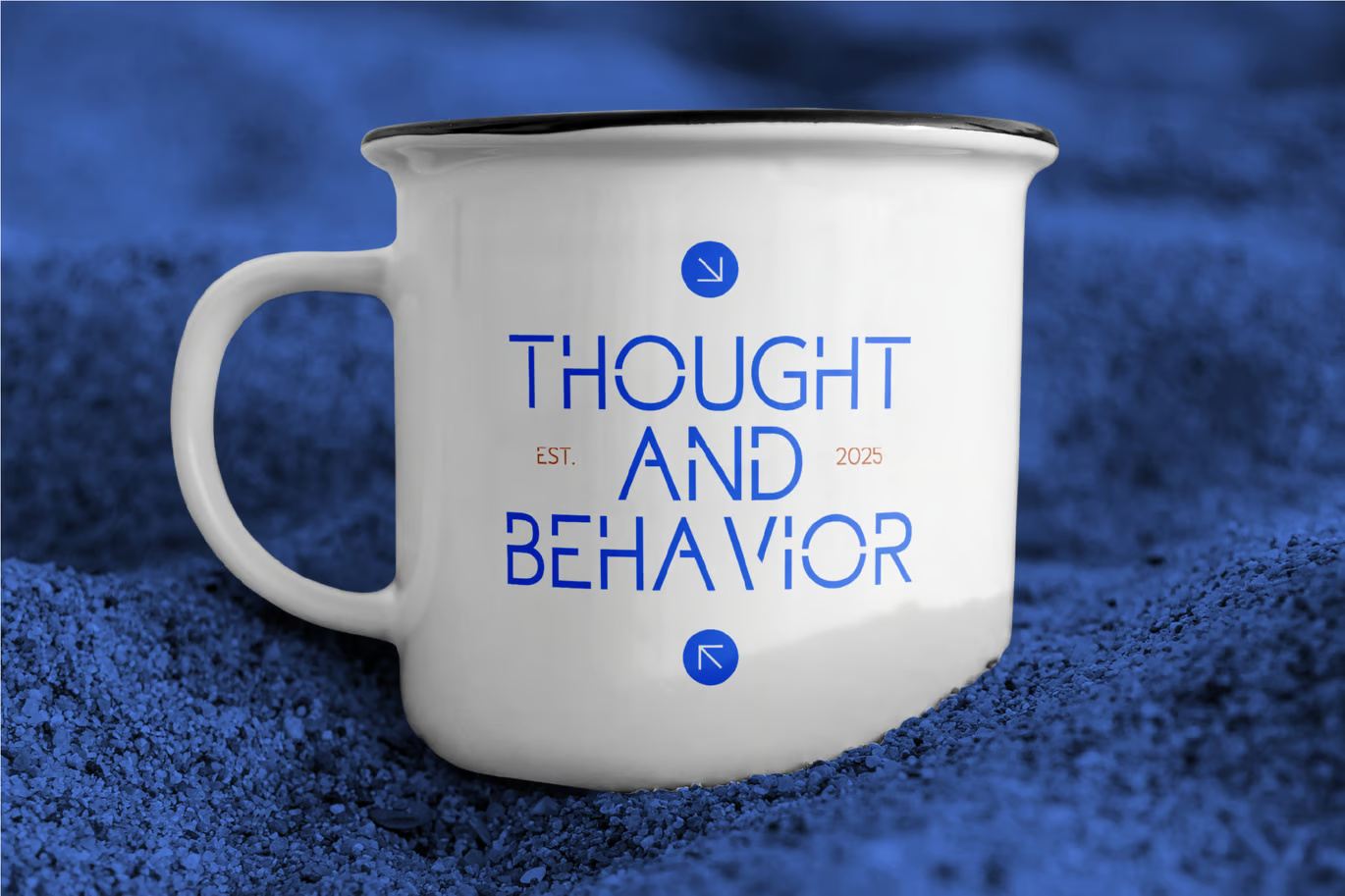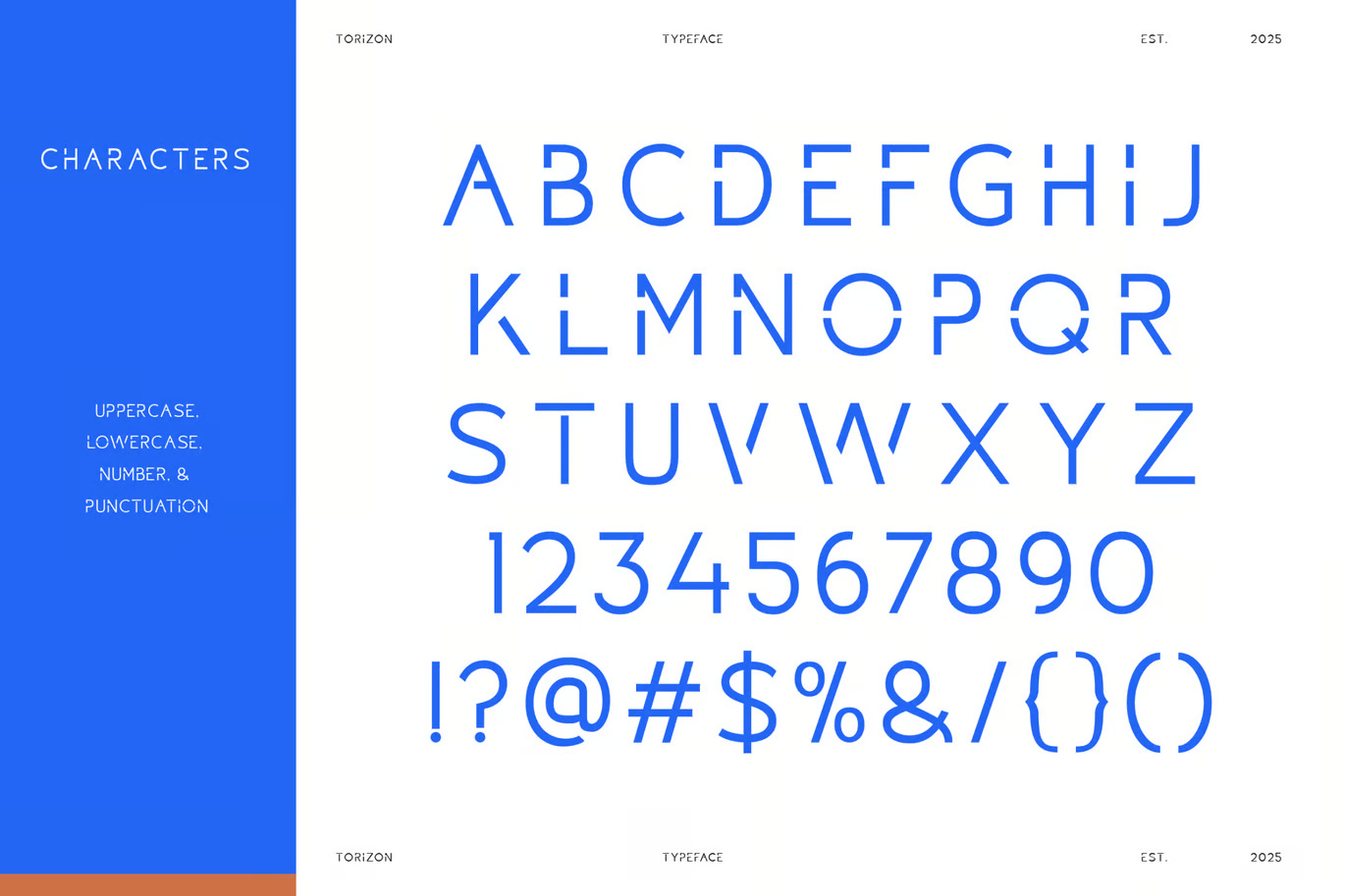
Torizon Sans Serif Font
Elevate your designs with Torizon Sans Serif Font, a modern and sophisticated typeface perfect for adding elegance and style to your projects. With its clean lines and contemporary aesthetic, Torizon is ideal for quotes, logotypes, magazine headers, branding, and more. This versatile font ensures your text stands out beautifully while maintaining a professional touch.
Torizon Elegant Sans Serif Font
Torizon Sans Serif Font